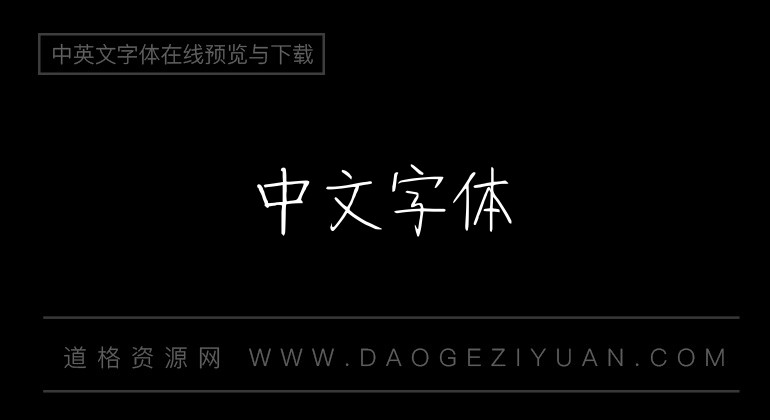
Sun Yun and Ku Kai
Sun Yun is a Chinese character font designed by Sun Wukong. It is a font similar to running script. It has the characteristics of clarity, dignity and atmosphere. Kukai is a Chinese character font designed by Kugou. It is a font similar to cursive script. It has the characteristics of simplicity, stability and atmosphere. At the same time, it also has a novel design that makes the font more interesting.
Sun Yun and Ku Kai is a very good handwriting art font, with a good visual sense, suitable for cultural propaganda design, commercial brand advertising and product packaging design and personalized text typesetting and other more scenes.